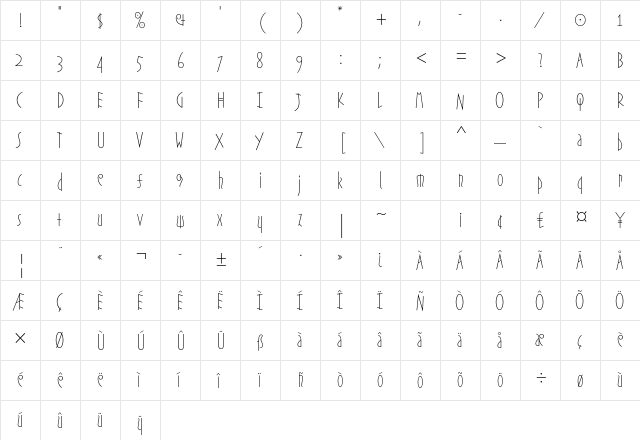
Etruscan Std Regular
| Designer | Timothy Donaldson |
Design Context for Etruscan Std Typeface
Etruscan Std is a composed and adaptable typeface that performs quietly and consistently across a wide range of design contexts.